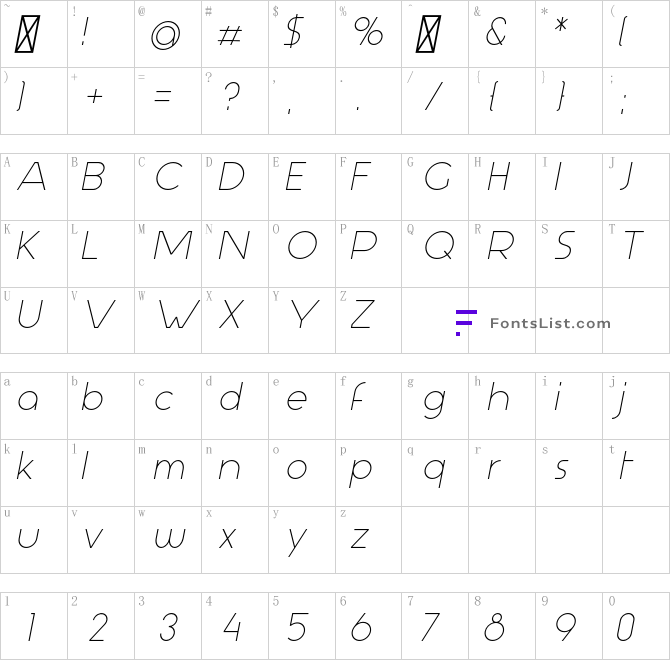
- Font Name:Aspergit
Aspergit-Italic.otf is a very beautiful artistic font, Aspergit-Italic.otf is widely used in the design and printing of various books and pictures,Aspergit-Italic.otf has a strong visual impact,Aspergit-Italic.otf is a commonly used font in newspapers, magazines and books, and is used in posters, e-commerce Poster design, store design, logo design, font design and other fields.Aspergit-Italic.